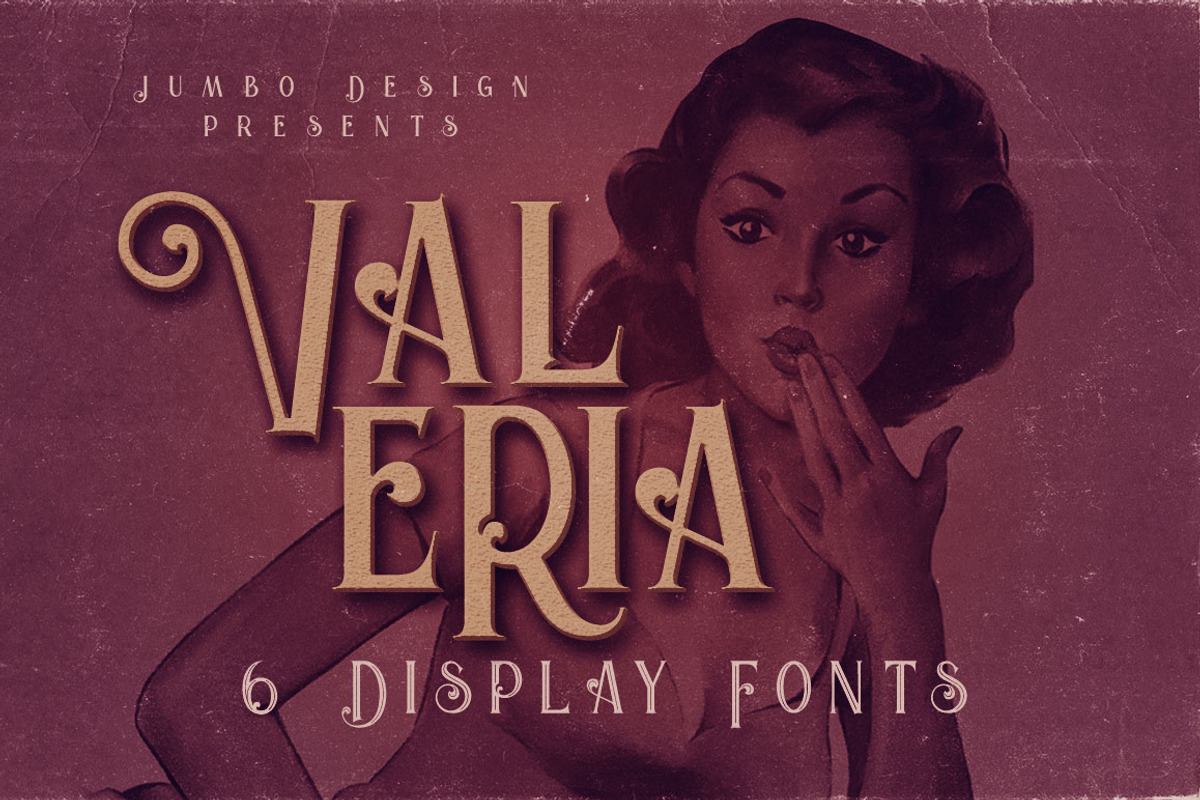
Valeria - Display Font Free Download
Valeria - Display Font Free Download is a bold and artistic typeface designed to capture attention with elegance and flair. Featuring high-contrast strokes, stylish curves, and a distinctive modern aesthetic, Valeria is perfect for fashion branding, editorial headlines, logos, luxury packaging, and creative social media visuals. Its striking design brings a sophisticated personality to any layout.
Ideal for use in large formats, Valeria shines in titles and display settings where you want your typography to stand out and speak with confidence. Whether you're working on a high-end magazine cover or a chic brand identity, this font adds a dramatic and refined touch.